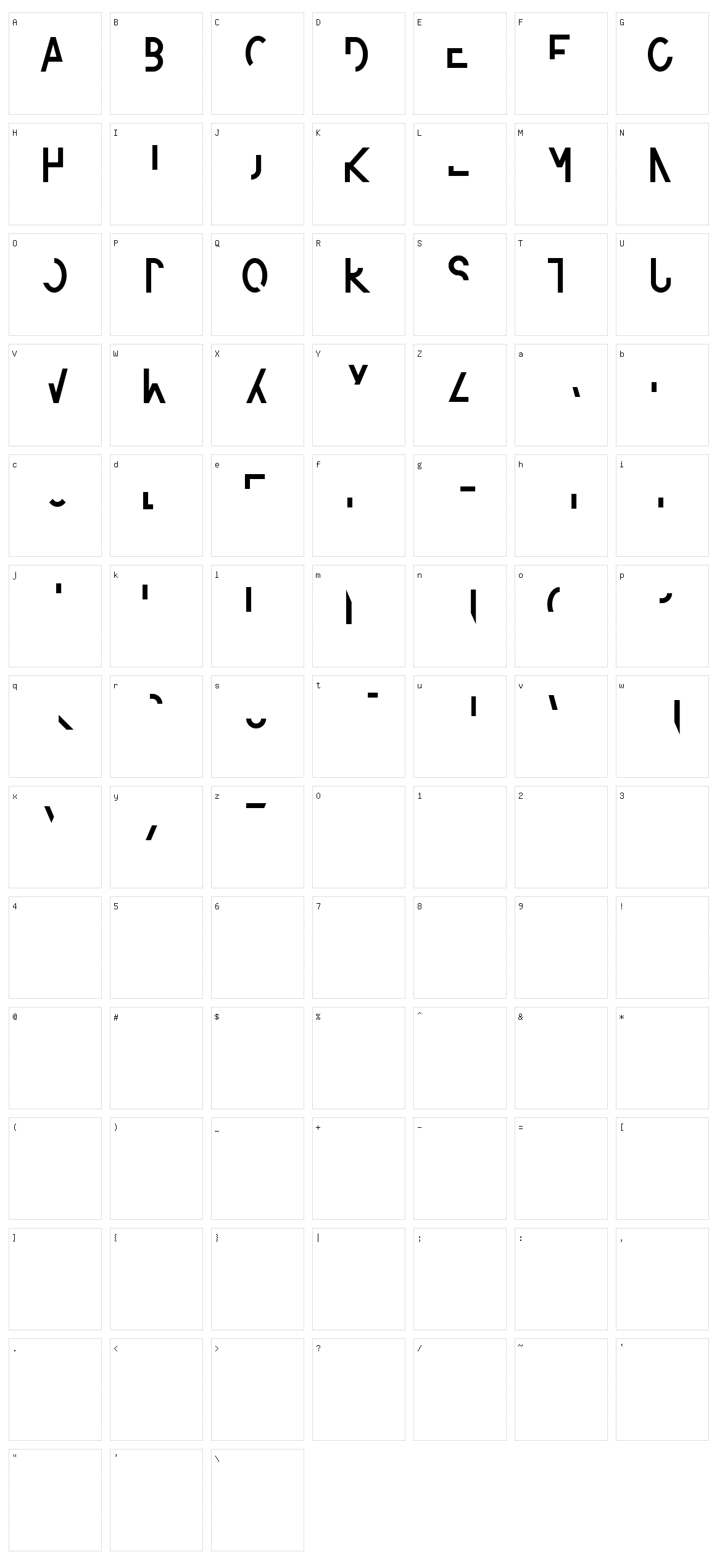
The free font Amputierte is carefully designed by Simon Thomaschke, showcasing a thoughtful balance of creativity and usability and falls under the Distorted font style. When you download the ZIP file, it contains only 6.15 KB of font files, making it lightweight and quick to download. Please review the license details below to understand permitted usage and distribution rights. If license information is not available, we recommend using this font for personal projects only or contacting the author directly for commercial usage permissions.